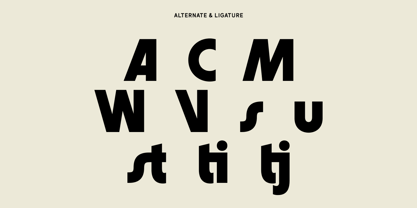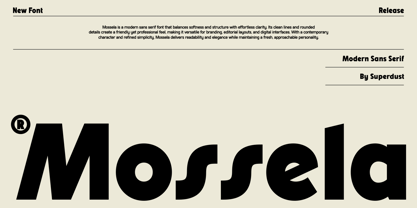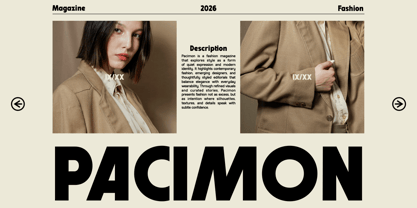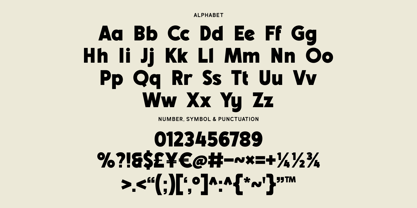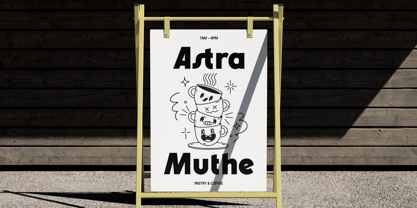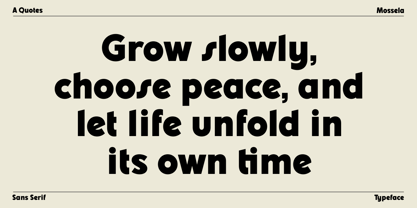
Mossela
by Super Dust
The Mossela Font Family was designed by Tri Iriyanto Wibowo and published by Super Dust. Mossela contains 1 styles. More about this family
Mossela is a modern sans-serif typeface crafted with a clean, minimalist aesthetic and timeless elegance. Featuring balanced proportions, smooth curves, and refined letterforms, Mossela delivers exceptional clarity while maintaining a sophisticated contemporary look. Its simple yet confident character creates a strong visual presence without unnecessary distractions, making every design feel polished and professional.
Inspired by the beauty of simplicity, the name Mossela reflects a sense of calm sophistication and modern refinement. The font embodies a perfect balance between functionality and style, allowing it to communicate messages with clarity and confidence. Its versatile design adapts effortlessly to both bold headlines and elegant typography compositions.
Mossela is ideal for logos, branding, packaging, editorial layouts, websites, social media graphics, advertising, and modern business identities. Whether used for fashion brands, creative studios, lifestyle products, or contemporary marketing materials, Mossela brings a fresh, clean, and memorable touch to every project. A typeface designed to elevate modern design with simplicity, versatility, and lasting visual appeal.
Designers: Tri Iriyanto Wibowo
Foundry: Super Dust